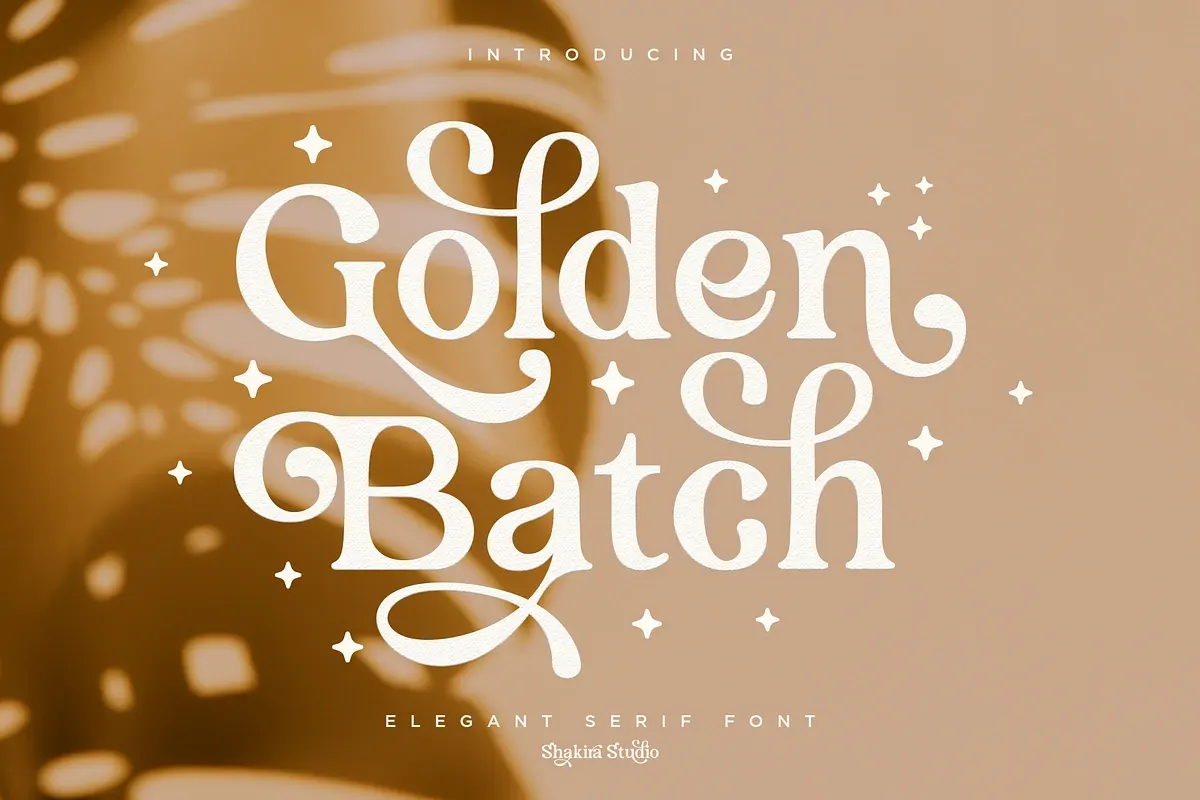
Golden Batch - Elegant Serif Font Free Download
Golden Batch - Elegant Serif Font Free Download is a sophisticated and timeless typeface that combines classic serif details with a refined, modern touch. Its sleek lines, high contrast, and elegant curves make it perfect for luxury branding, high-end editorial designs, wedding invitations, and upscale product packaging.
The font's graceful proportions and stylish serifs provide a perfect balance between formality and flair, allowing it to work seamlessly across both print and digital mediums. Whether you're designing an elegant logo, chic social media posts, or polished marketing materials, Golden Batch adds a touch of luxury and class.